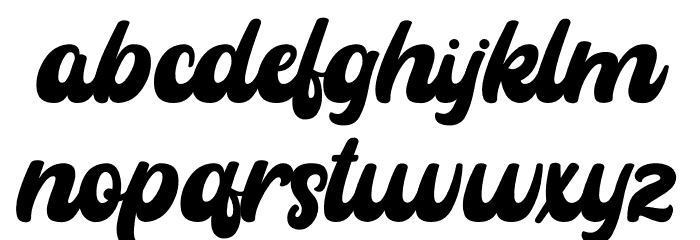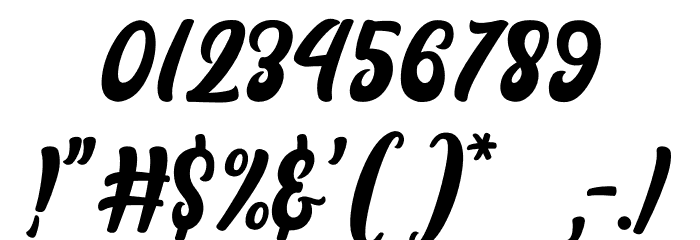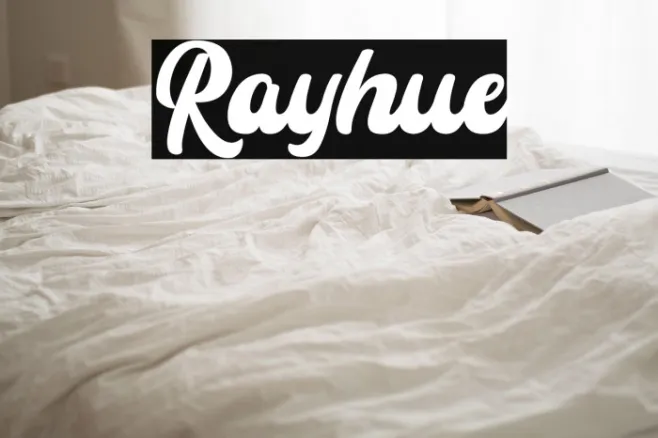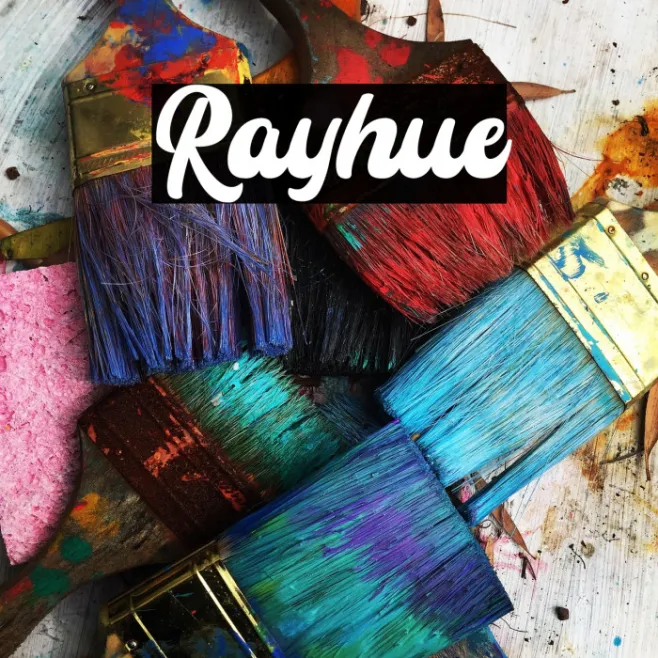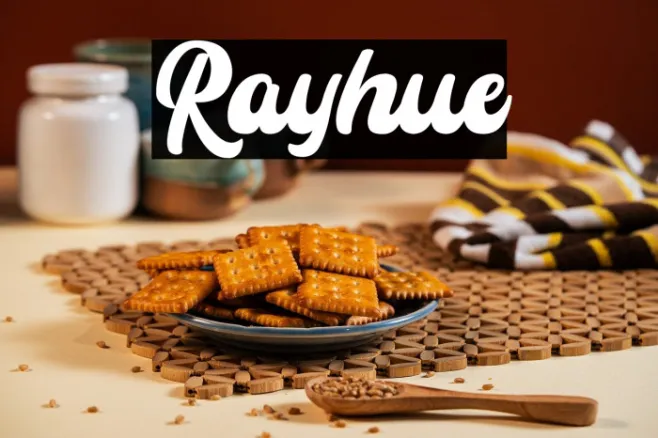
Rayhue Font
This font features a bold and dynamic script style, characterized by its flowing and connected letterforms. The uppercase letters exhibit a sense of elegance with their sweeping curves and consistent stroke width, while the lowercase letters maintain a playful and approachable appearance. The numerals are bold and easy to read, complementing the overall aesthetic. Special characters are integrated seamlessly, maintaining the fluidity and style of the script. The font's design is suitable for creating a sense of movement and energy, making it ideal for projects that require a touch of sophistication and flair.
A bold, dynamic script font with flowing, connected letterforms.
- Proposed Projects: Ideal for branding, invitations, greeting cards, and logo design.
- Use Case: Logos, Headlines, Invitations